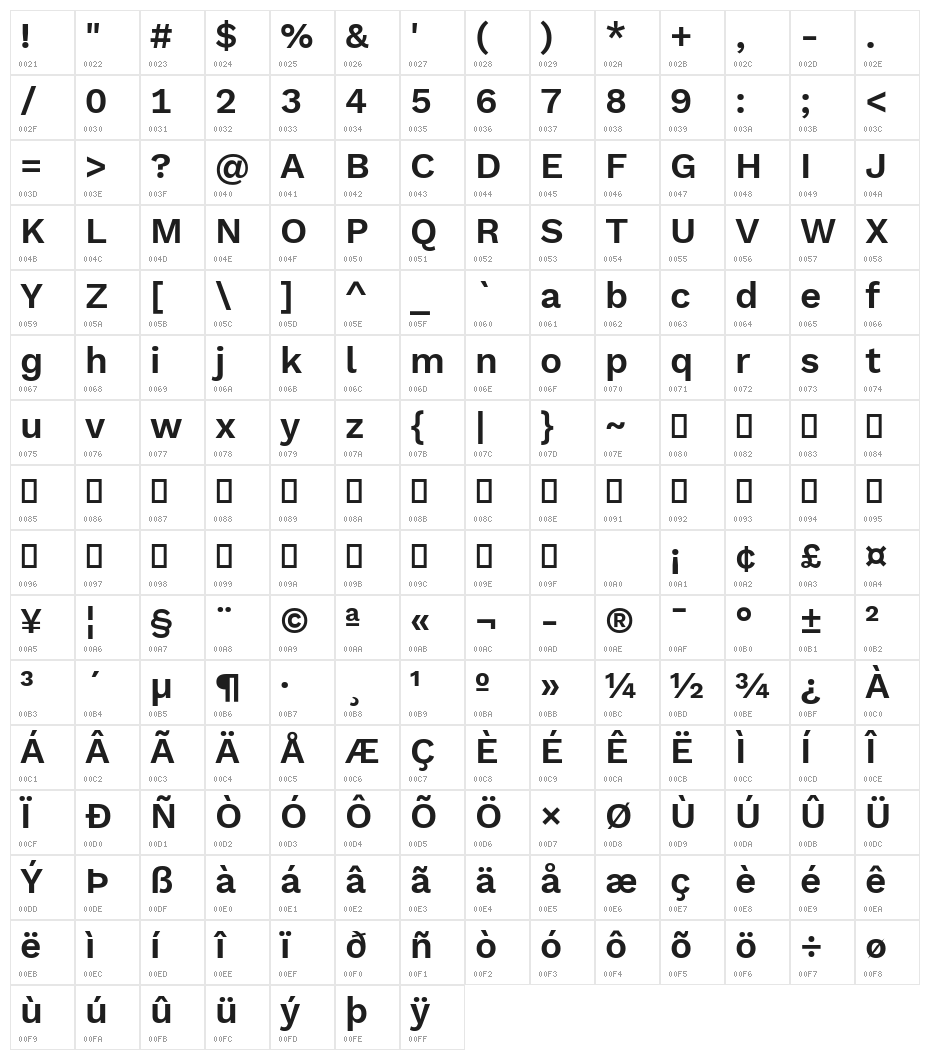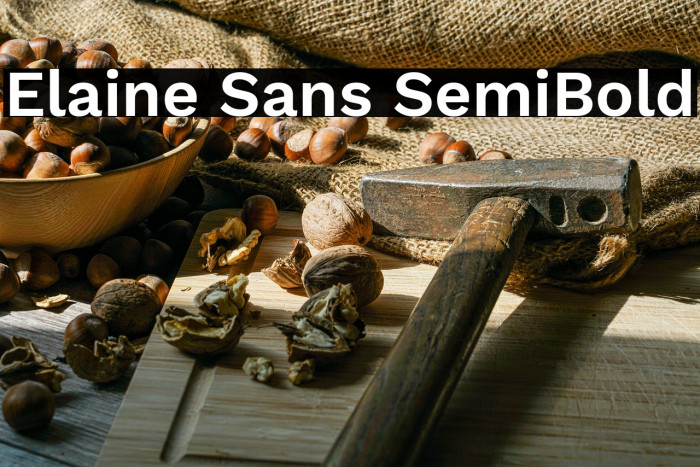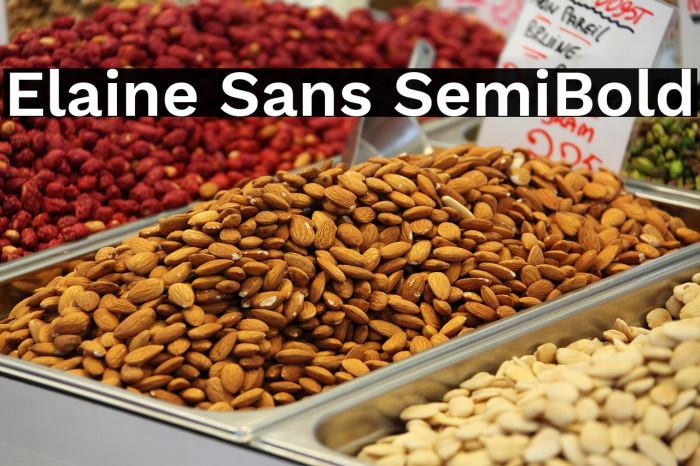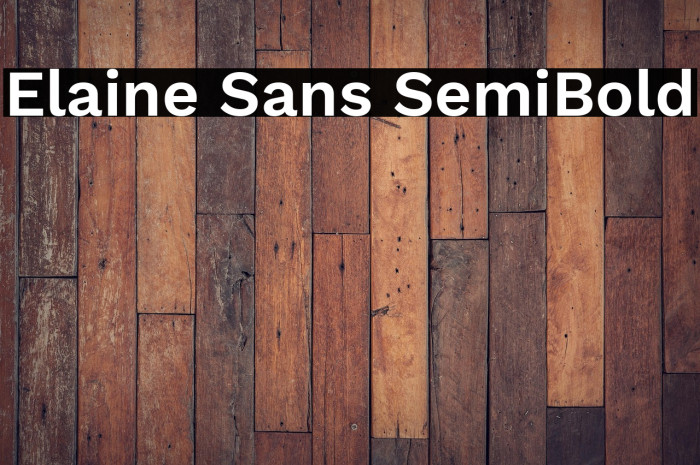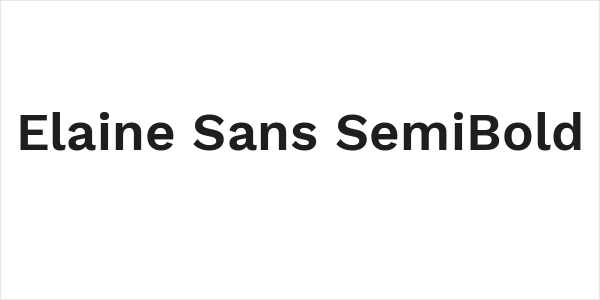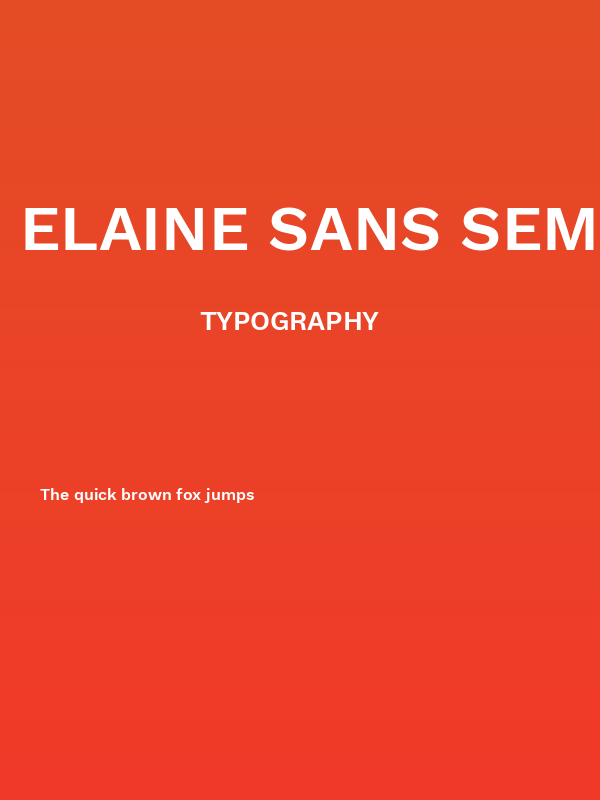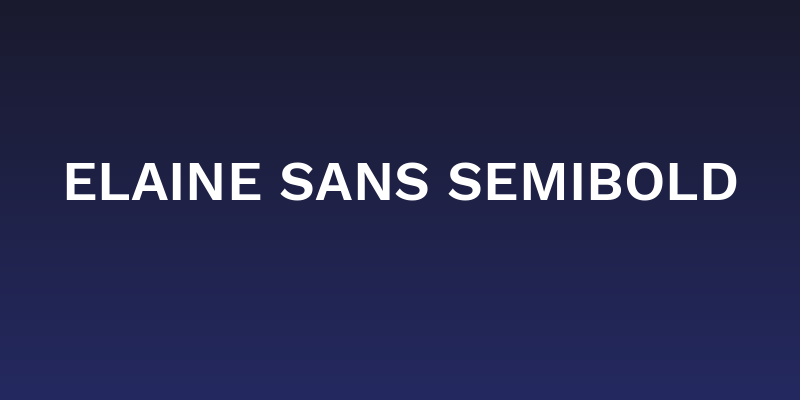
Elaine Sans SemiBold Font
Elaine Sans SemiBold Description
This font features a clean and modern sans-serif design, characterized by its semi-bold weight that provides a strong yet approachable appearance. The characters are well-proportioned with a uniform stroke width, offering excellent legibility across various sizes. The uppercase letters are bold and assertive, while the lowercase letters maintain a friendly and accessible feel. The numerals are clear and distinct, making them suitable for both text and display purposes. Special characters are included, ensuring versatility for different types of content. The overall style is contemporary, making it ideal for modern design projects.